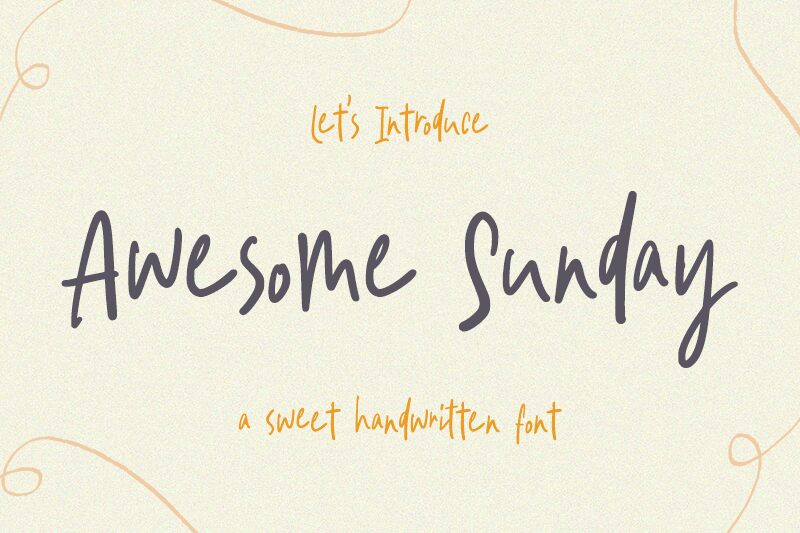
Introducing Awesome Sunday, a delightful handwritten font by Kotak Kuning Studio. With its semi-light weight and semi-condensed width, this font adds a touch of elegance and playfulness to any project. Perfect for creating eye-catching logos, branding materials, and social media graphics that require a personal touch. Whether you're designing invitations for a whimsical wedding or crafting cheerful greeting cards, Awesome Sunday is the ideal choice to bring your ideas to life. Let your creativity shine with this versatile font that exudes charm and character. Explore limitless possibilities with Awesome Sunday! Visit kotakkuning.com for more details.
Awesome Sunday
Kotak Kuning Studio.
M Arif Dwi Prasetyo & Eko Nur Cahyo